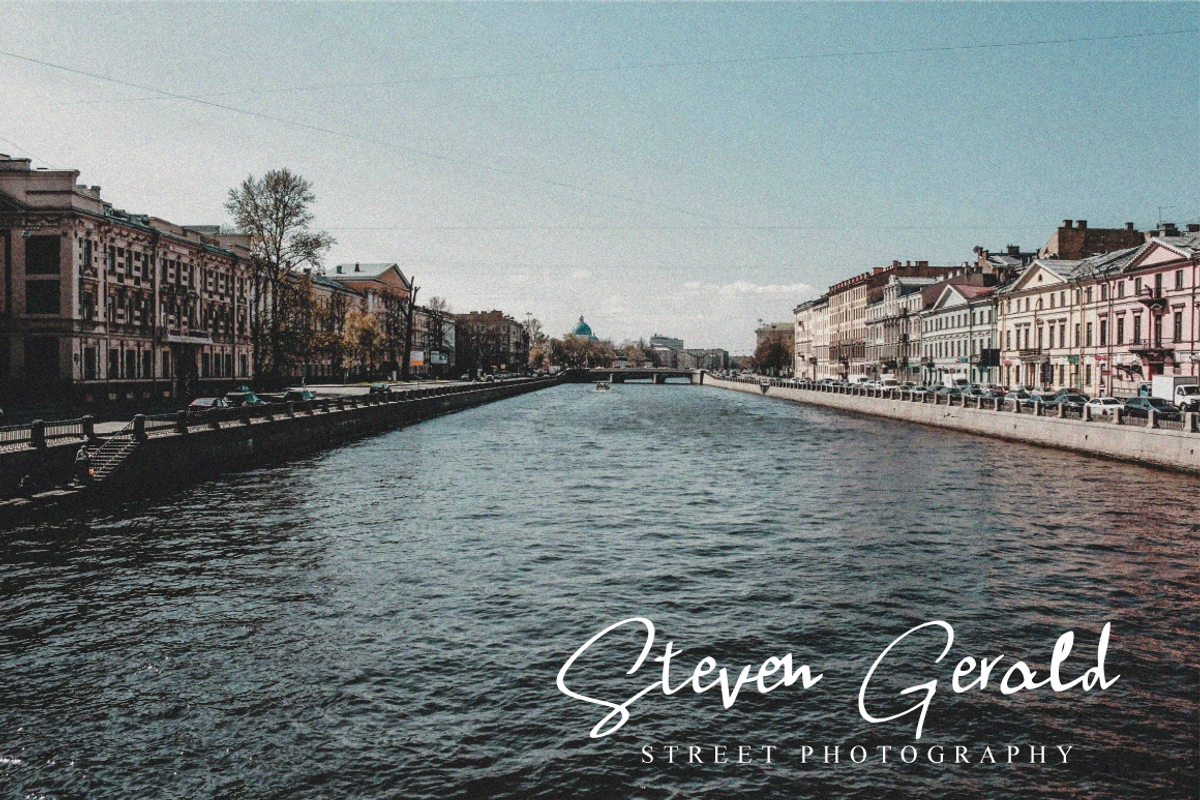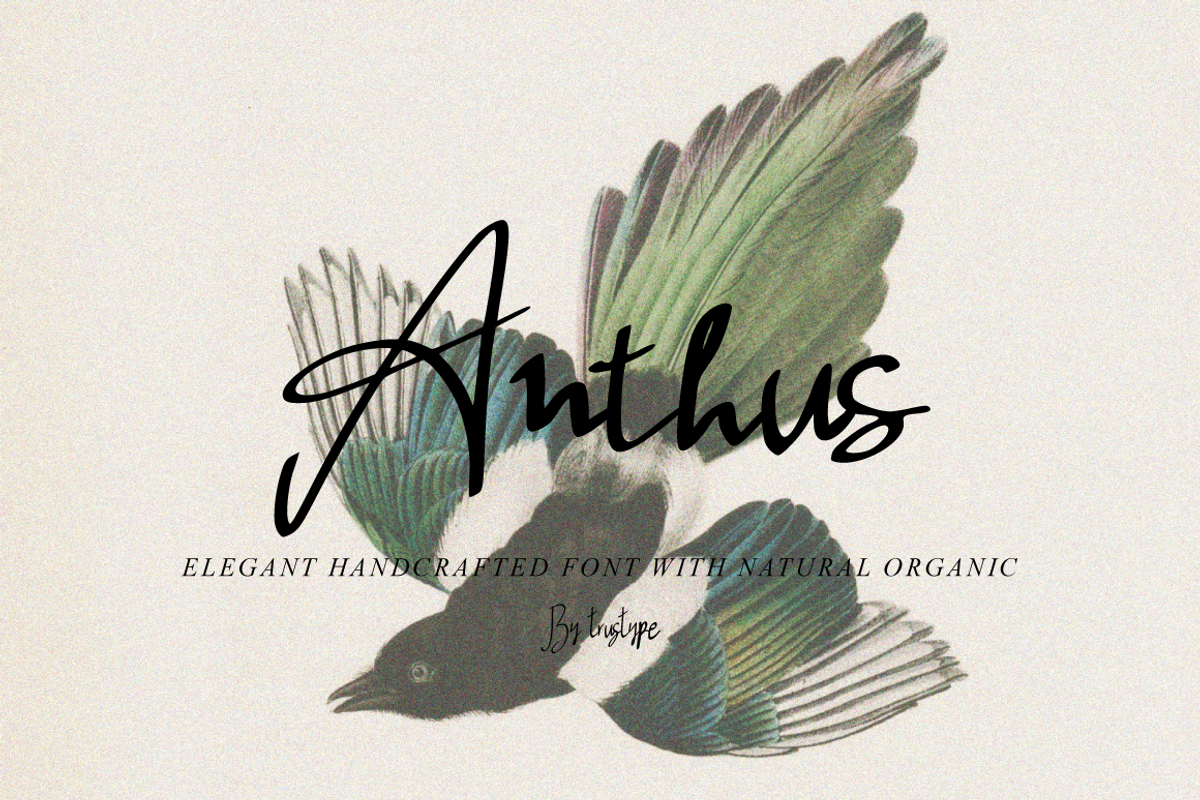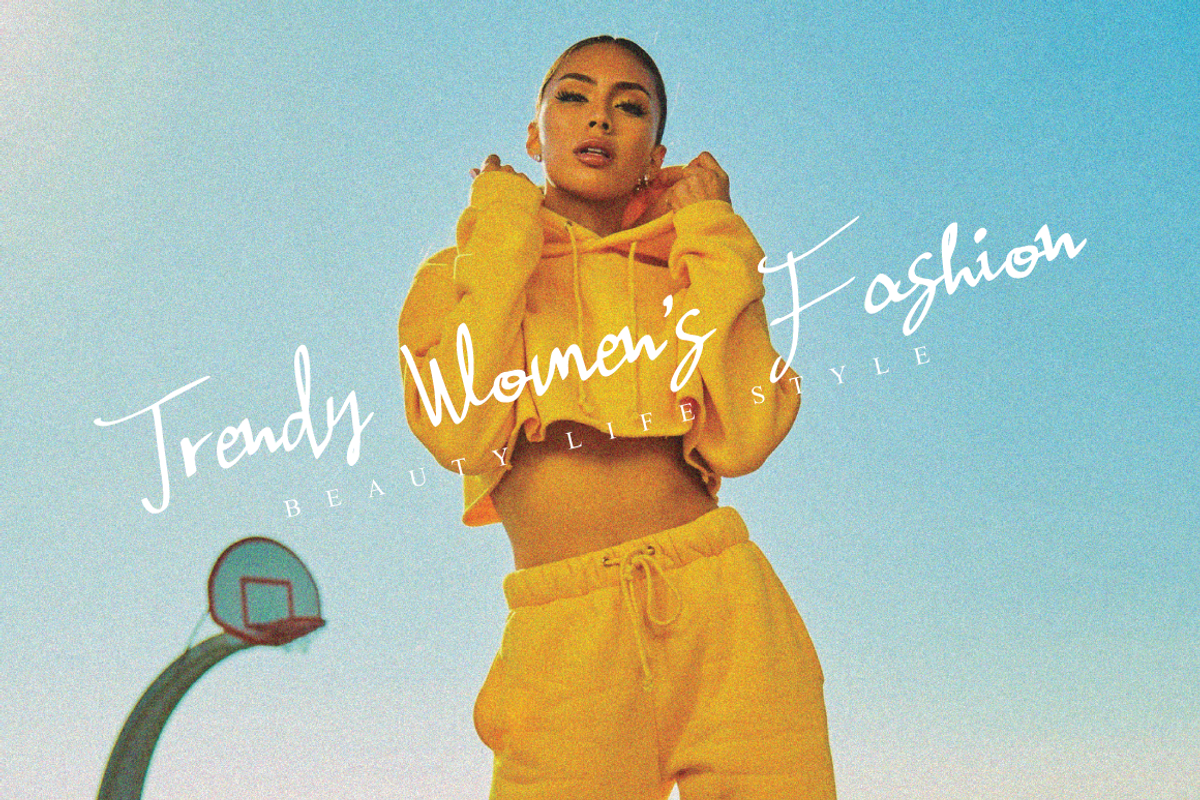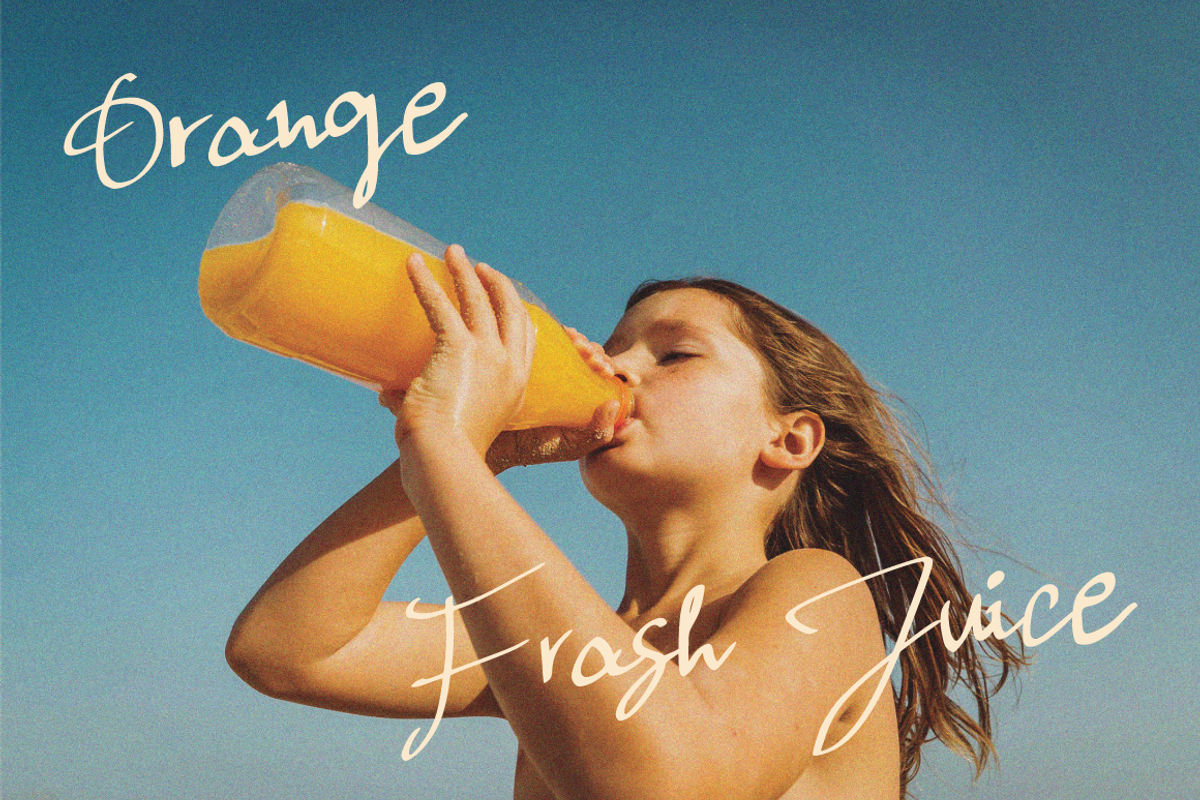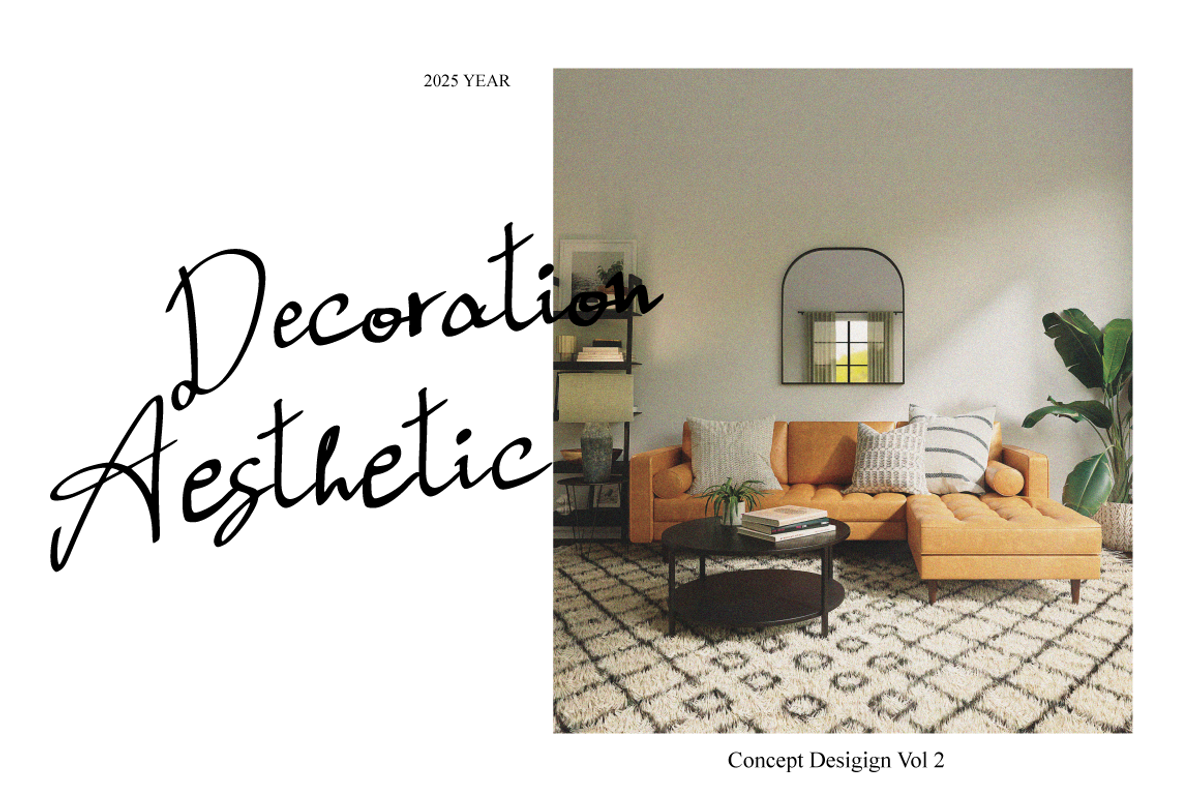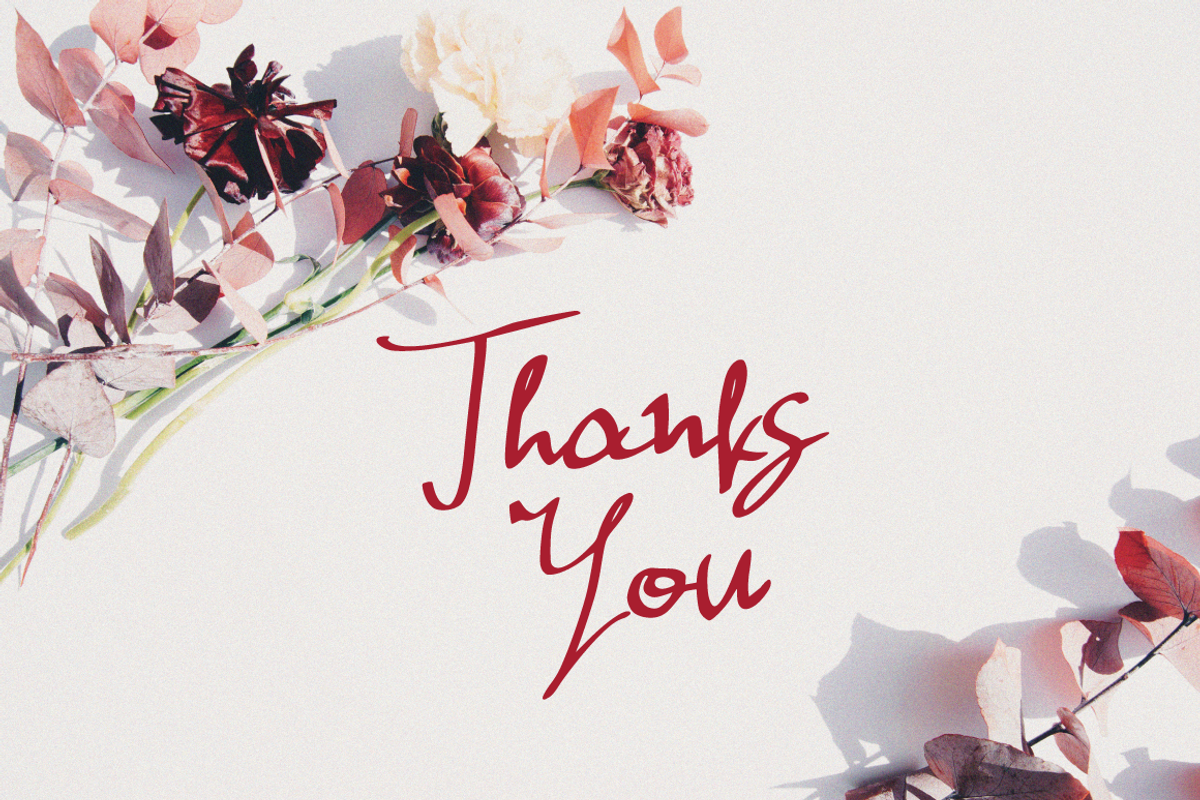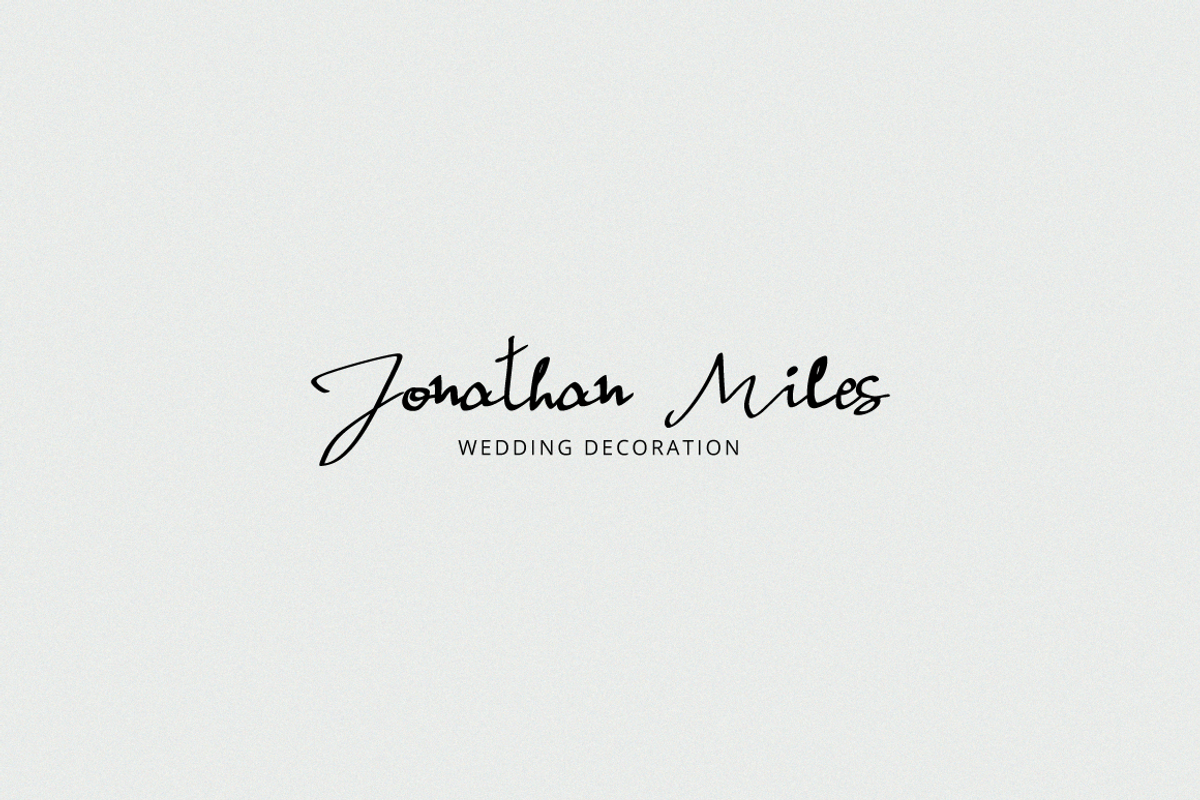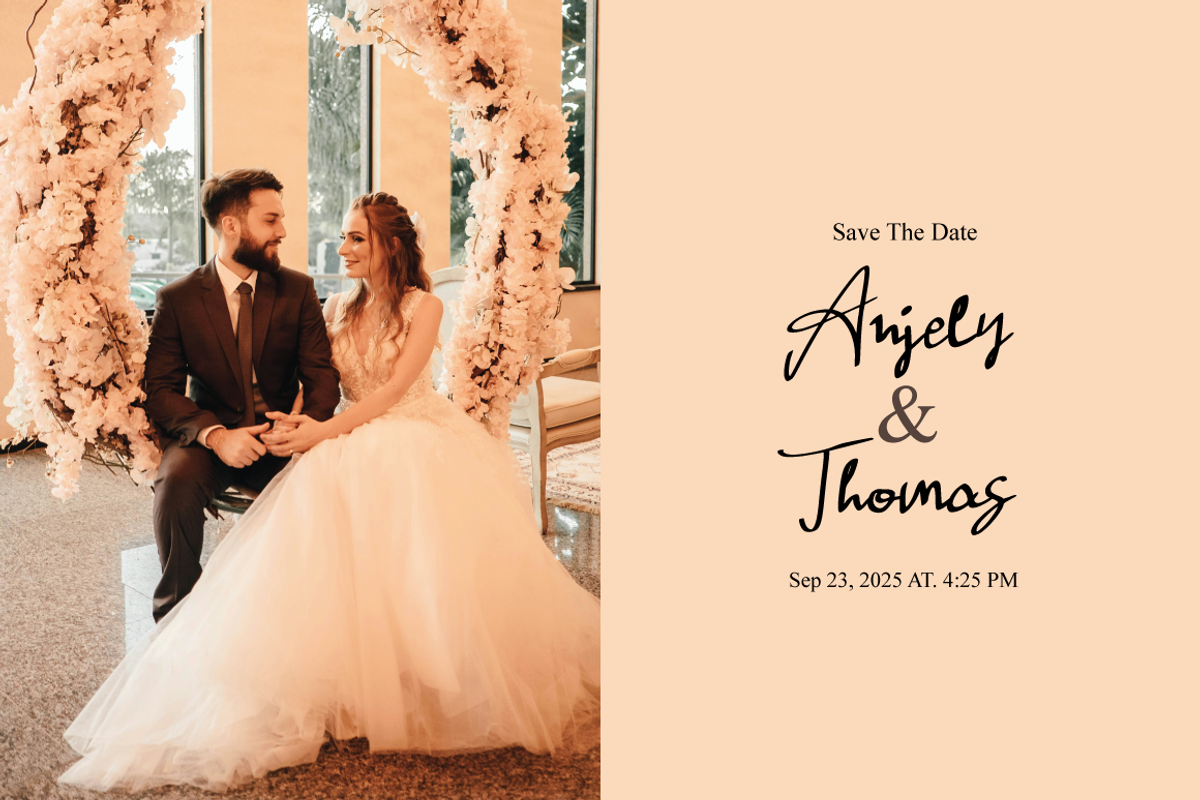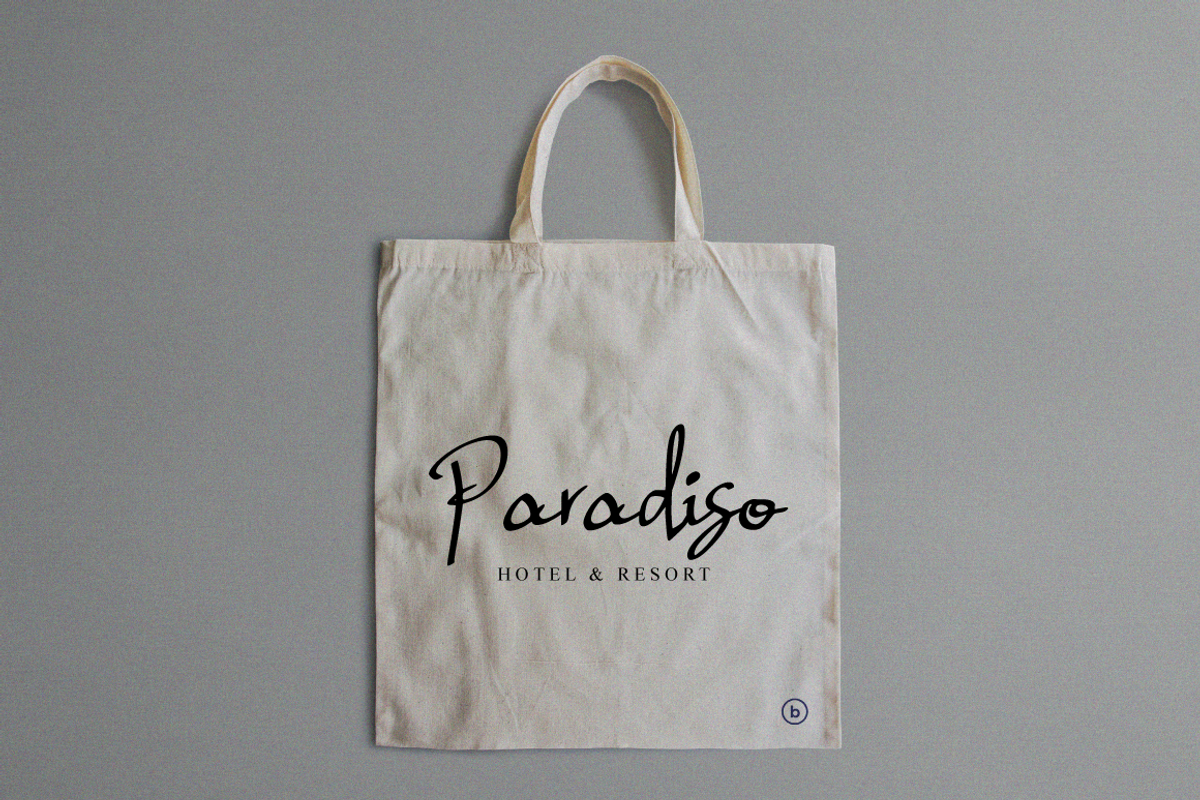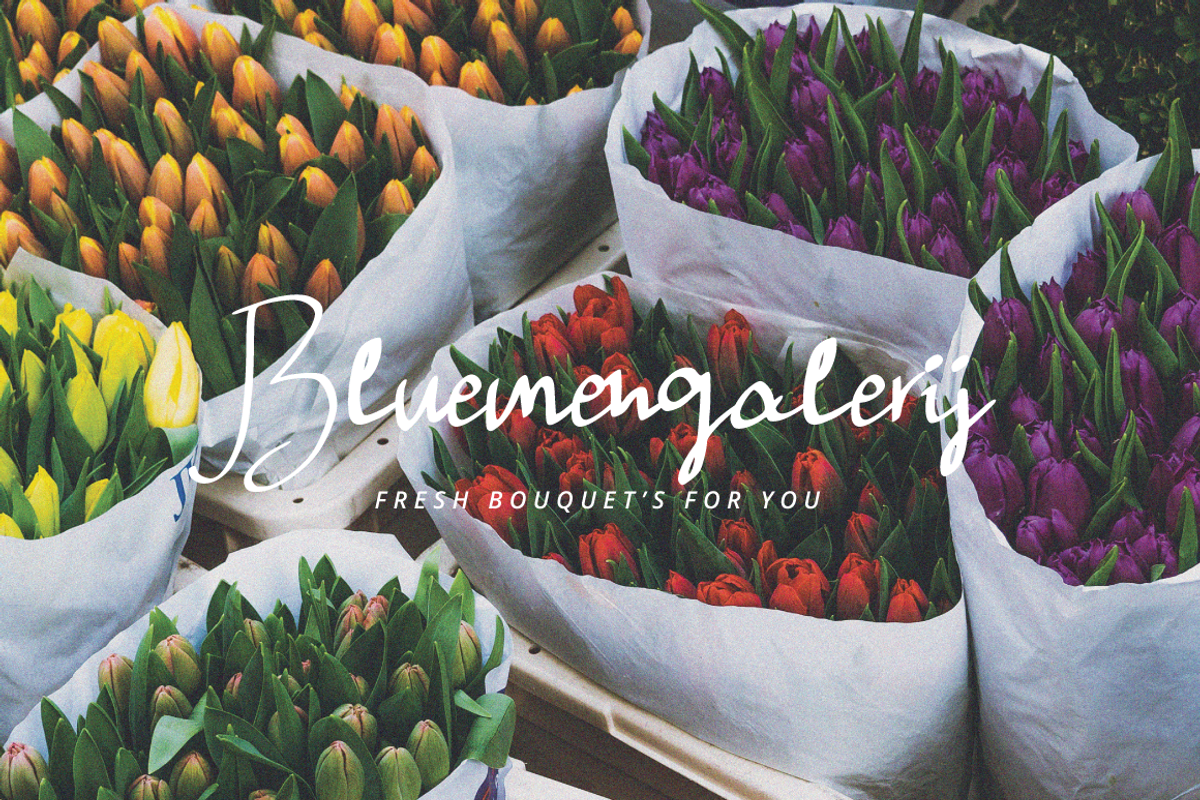
Anthus Signature
Anthus Signature with a natural organic, decorative characters and a dancing baseline!
Anthus Signature with 130+ glyphs. The alternative characters were divided into several Open Type features such as Swash, Stylistic Sets, Stylistic Alternates, and Ligature. The Open Type features can be accessed by using Open Type savvy programs such as Adobe Illustrator, Adobe InDesign, Adobe Photoshop Corel Draw X version, And Microsoft Word. And this Font has given PUA unicode (specially coded fonts). so that all the alternate characters can easily be accessed in full by a craftsman or designer.